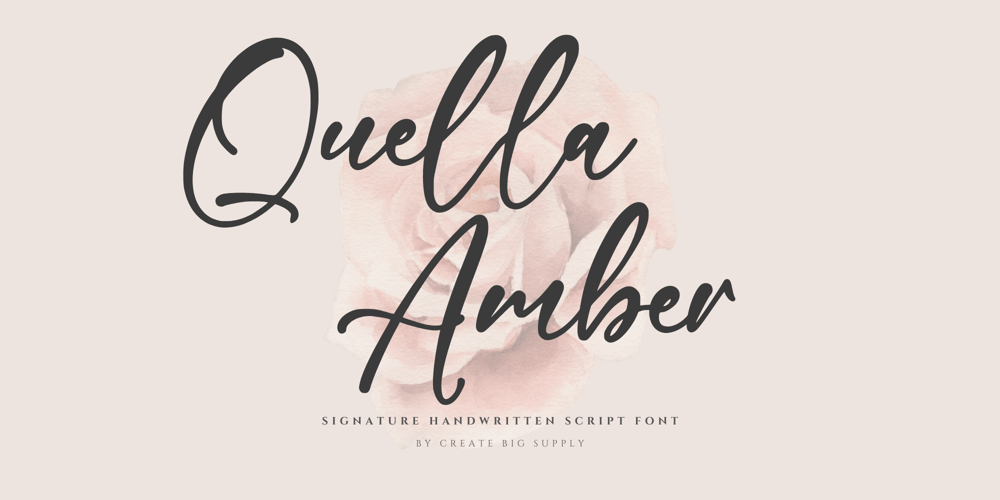
Quella Amber
Quella Amber font
Quella Amber Font Family was designed by Irpan Maulana and published by Create Big Supply. Quella Amber contains 1 styles and family package options. Quella Amber is a remarkable signature handwriting font that brings a touch of elegance and sophistication to your design projects. With its unique and authentic style, this font captures the essence of handwritten script with graceful curves and smooth strokes, making it the perfect choice for adding a personal and intimate feel to your creations.Crafted with meticulous attention to detail, Quella Amber showcases a seamless blend of uppercase and lowercase characters, allowing for versatile typography options. Whether you’re designing a logo, creating invitations, or working on brand identity materials, this font will elevate your work and leave a lasting impression on your audience.One of the standout features of Quella Amber is its extensive language support. With multilingual capabilities, this font ensures that you can express your creativity in various languages and cater to a global audience. From English to Spanish, French to German, Quella Amber enables seamless communication and allows you to deliver your message effectively.In addition to its aesthetic appeal, Quella Amber is also equipped with practical features that enhance its usability. With a wide range of numbers and punctuations, you can easily incorporate numerical information into your designs. The font also supports PUA (Private Use Area) encoding, which provides access to special characters, ligatures, and alternate letterforms, allowing you to customize and tailor your typography to suit your specific needs.Quella Amber is a downloadable font that empowers you to unleash your creativity and bring your vision to life. By incorporating this exquisite signature handwriting font into your projects, you can infuse a sense of personality and warmth into your designs, making them truly unique and captivating.With Quella Amber, you can create stunning visuals that resonate with your audience, leaving a lasting impression and setting yourself apart from the competition. Experience the beauty and versatility of Quella Amber by downloading it today and embark on a journey of creativity and self-expression with this exceptional signature handwriting font.